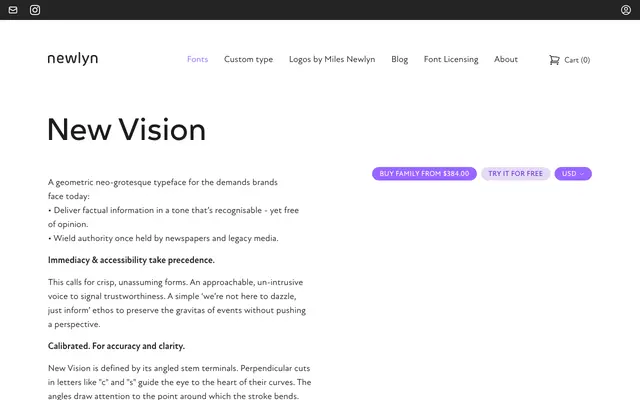
New Vision Italic
New Vision Italic specimen from Newlyn
A geometric neo-grotesque from Newlyn built around angled stem terminals and a deliberately impartial, informational tone suited to news and brand contexts.
New Vision is defined by its perpendicular cuts on terminals in letters such as 'c' and 's', a detail the foundry describes as drawing attention to the pivot of each curve to convey precision and competence. Ten weights from Hairline to Black are offered, all in the italic shown on this page. The design targets brands and publications that require an approachable, authoritative voice without editorial bias.
The foundry explicitly describes New Vision as a geometric neo-grotesque, characterised by perpendicular angled stem terminals and mechanically precise, unassuming forms typical of the genre.